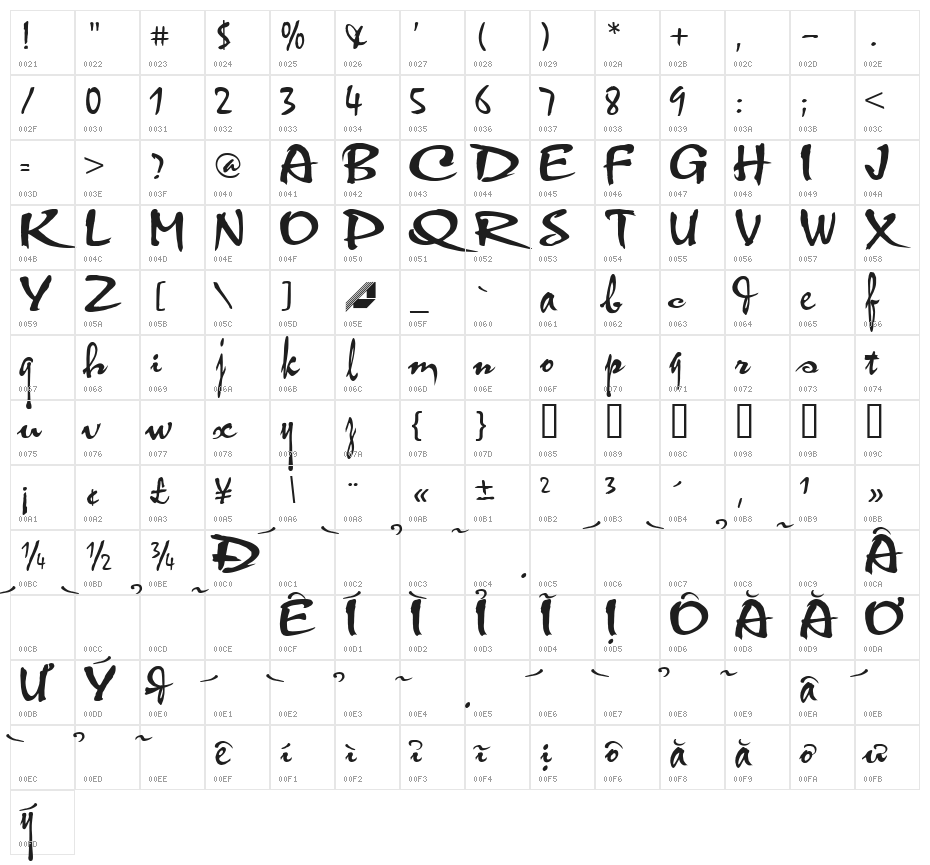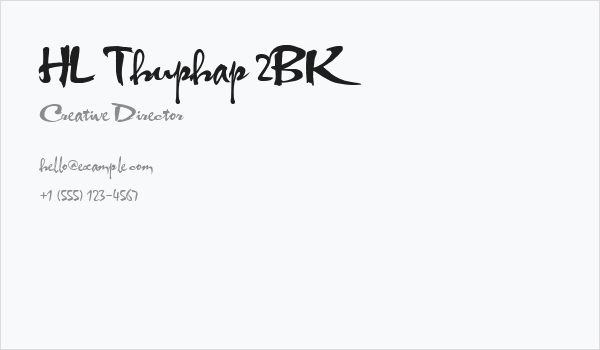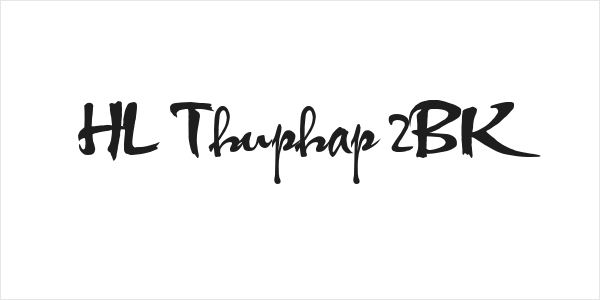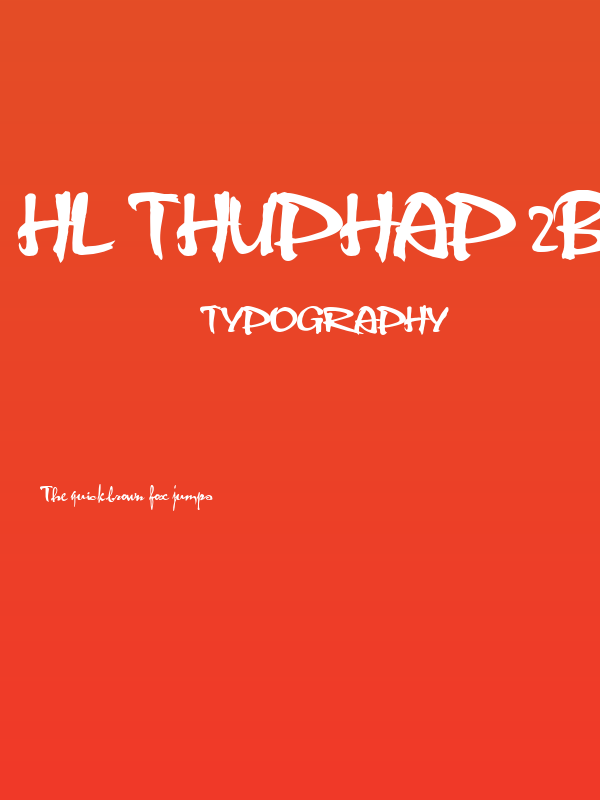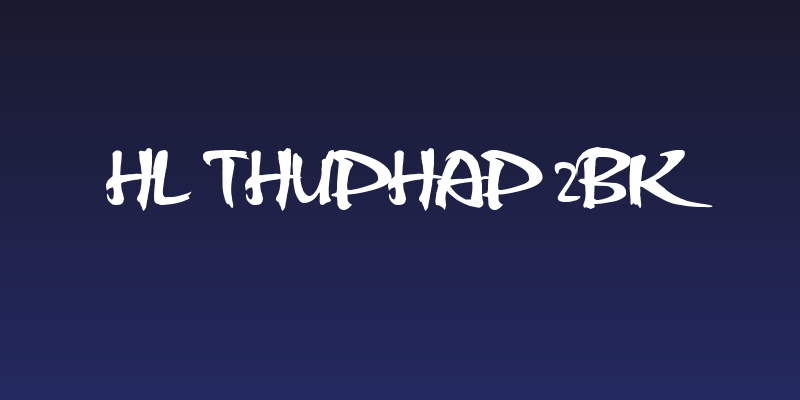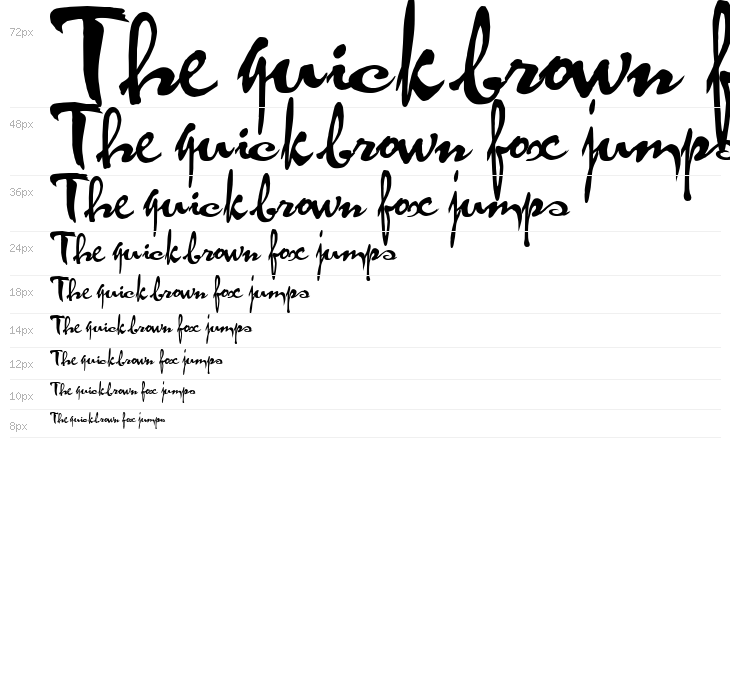
HL Thuphap 2BK Font
HL Thuphap 2BK Description
This font exhibits a dynamic and expressive style, reminiscent of traditional calligraphy with a modern twist. The uppercase letters are bold and sweeping, with a sense of motion and fluidity. Lowercase letters maintain this fluidity, featuring elegant curves and loops that suggest a handwritten quality. The numerals are consistent with the overall style, offering a playful yet sophisticated look. Special characters are creatively integrated, maintaining the font's artistic flair. This font's unique character and bold strokes make it ideal for projects that require a personal and artistic touch.
| Proposed Projects | Ideal for artistic projects, invitations, branding, and any design requiring a personal, handwritten touch. |